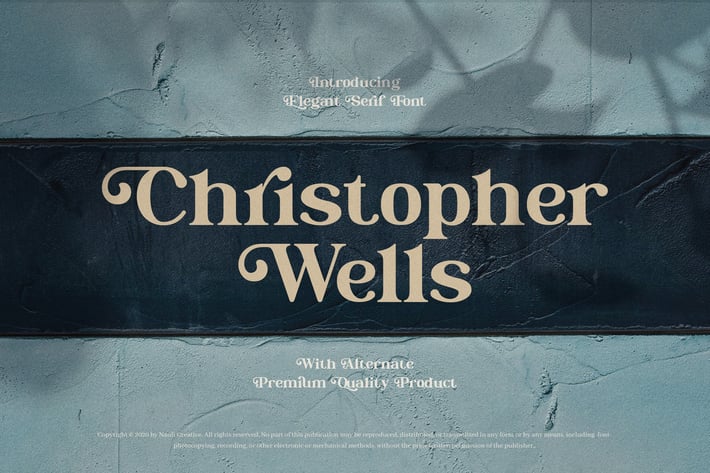
Christopher Wells - Elegant Serif Font
Are you looking for a bold and elegant serif font? We can help! Try to download our Christopher Wells font. The font is suitable to use for all purpose. Try to use it on Wedding invitation, summer occasion, greeting card, poster, postcard, movie poster, photography, branding, editorial, event, fashion, and more!
Basic Latin A-Z and a-z
Multilangual Support for ä ö ü Ä Ö Ü
International Character